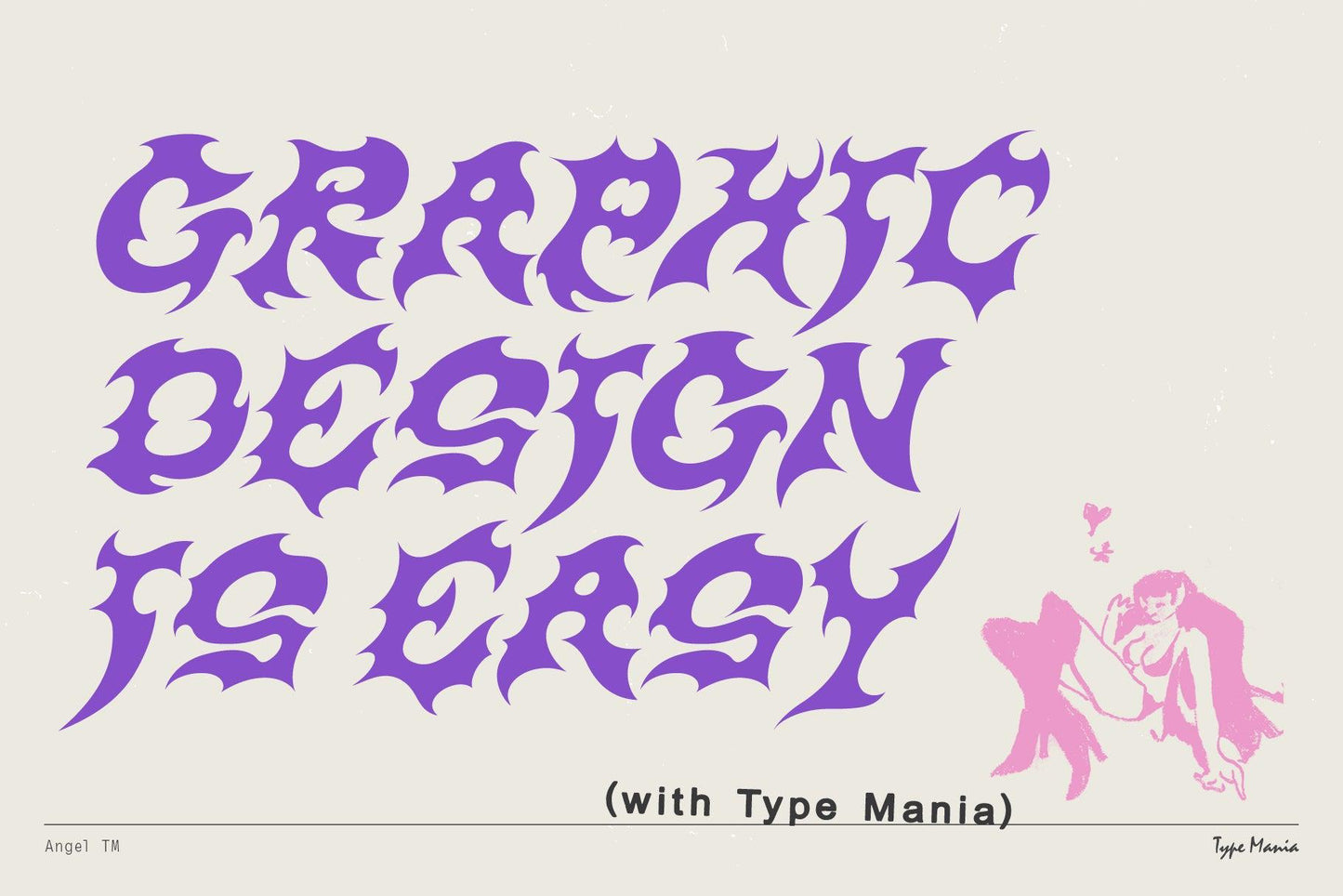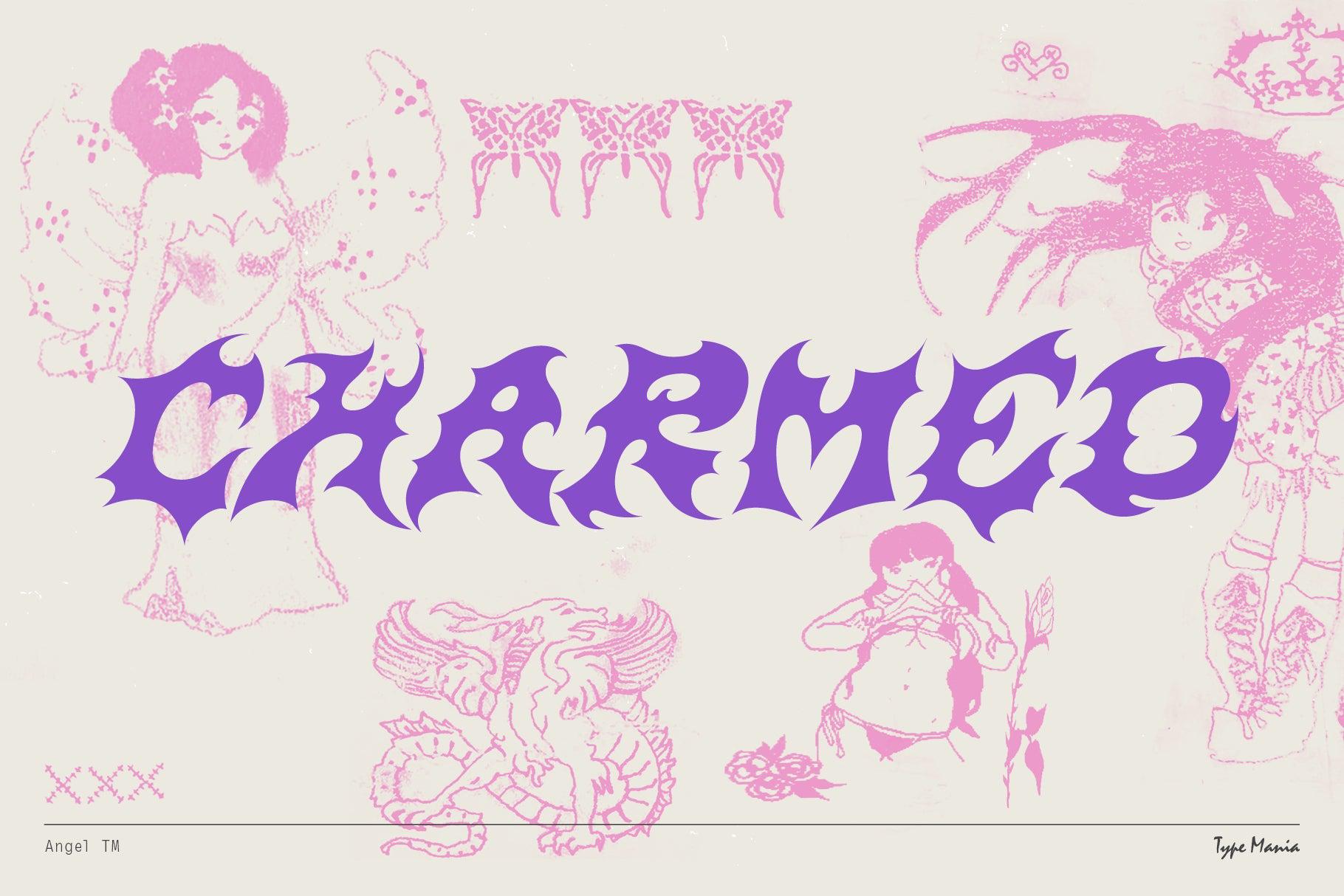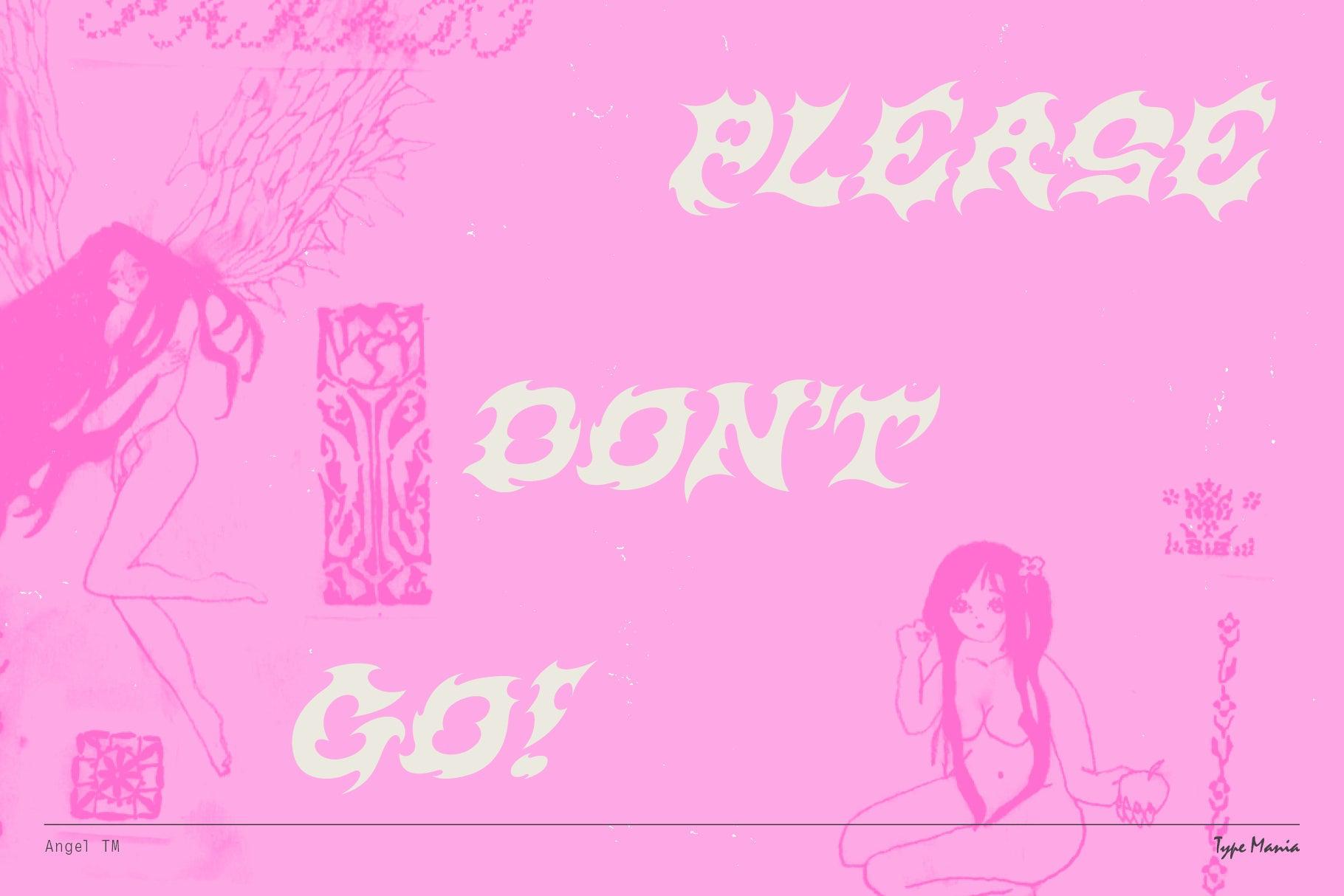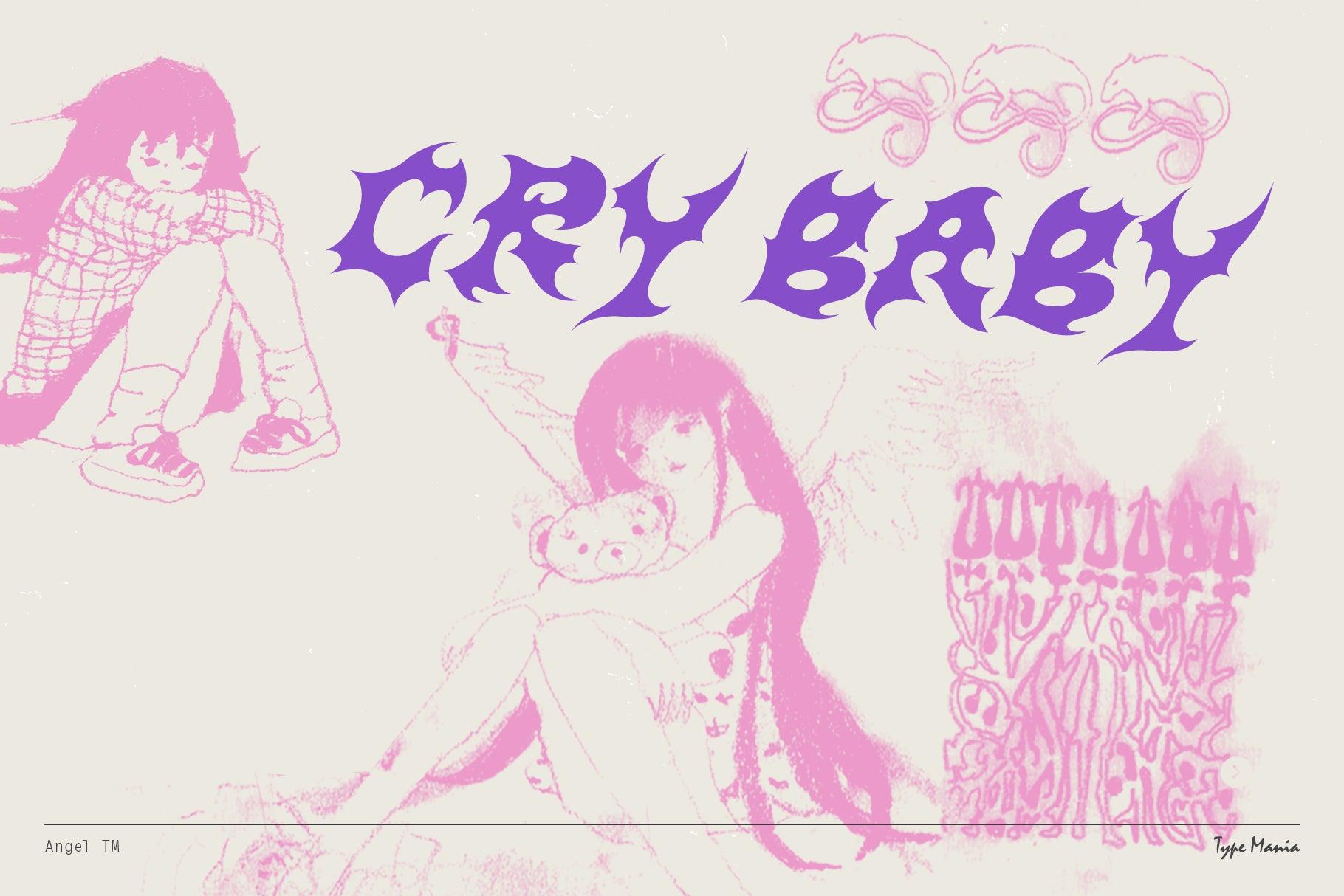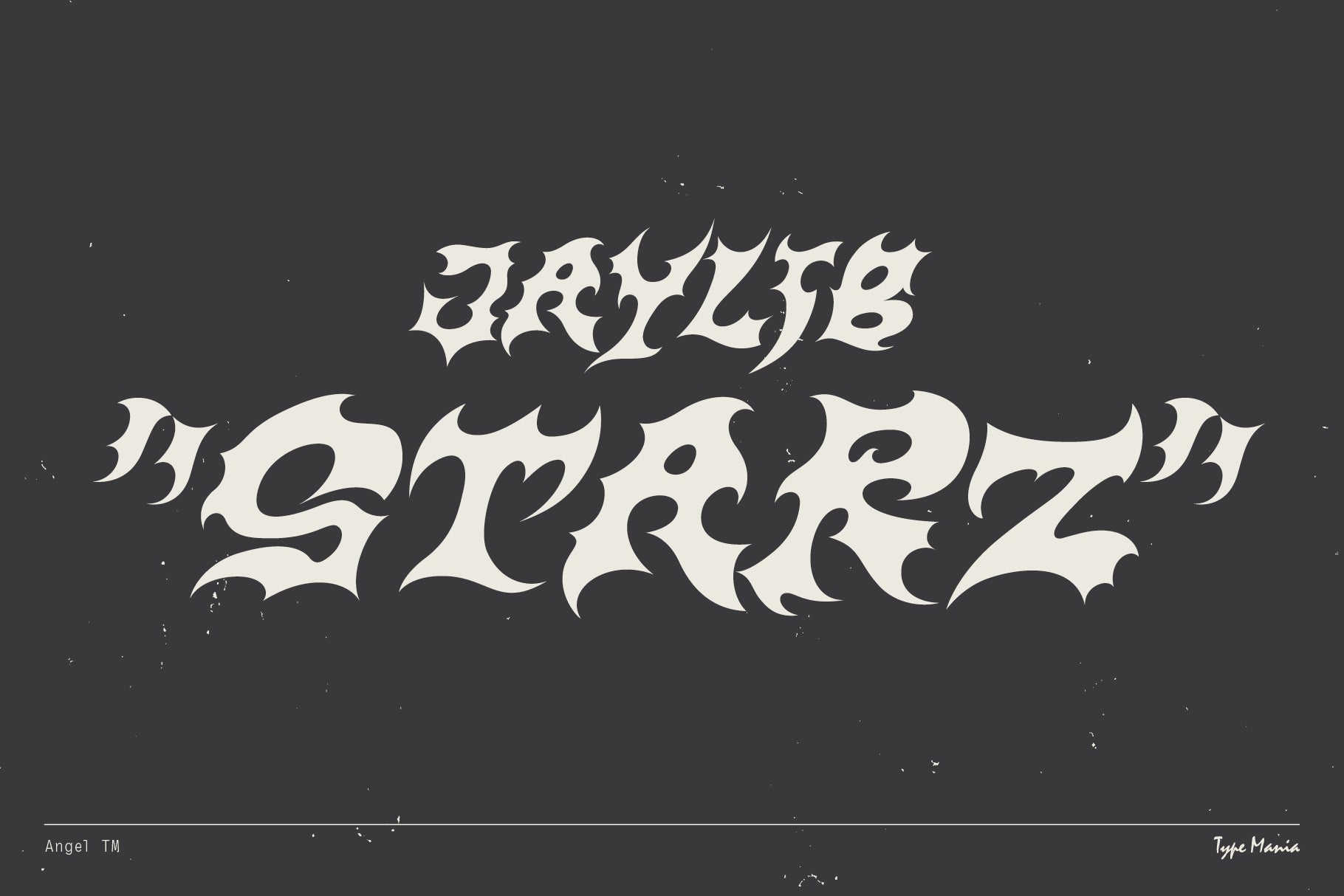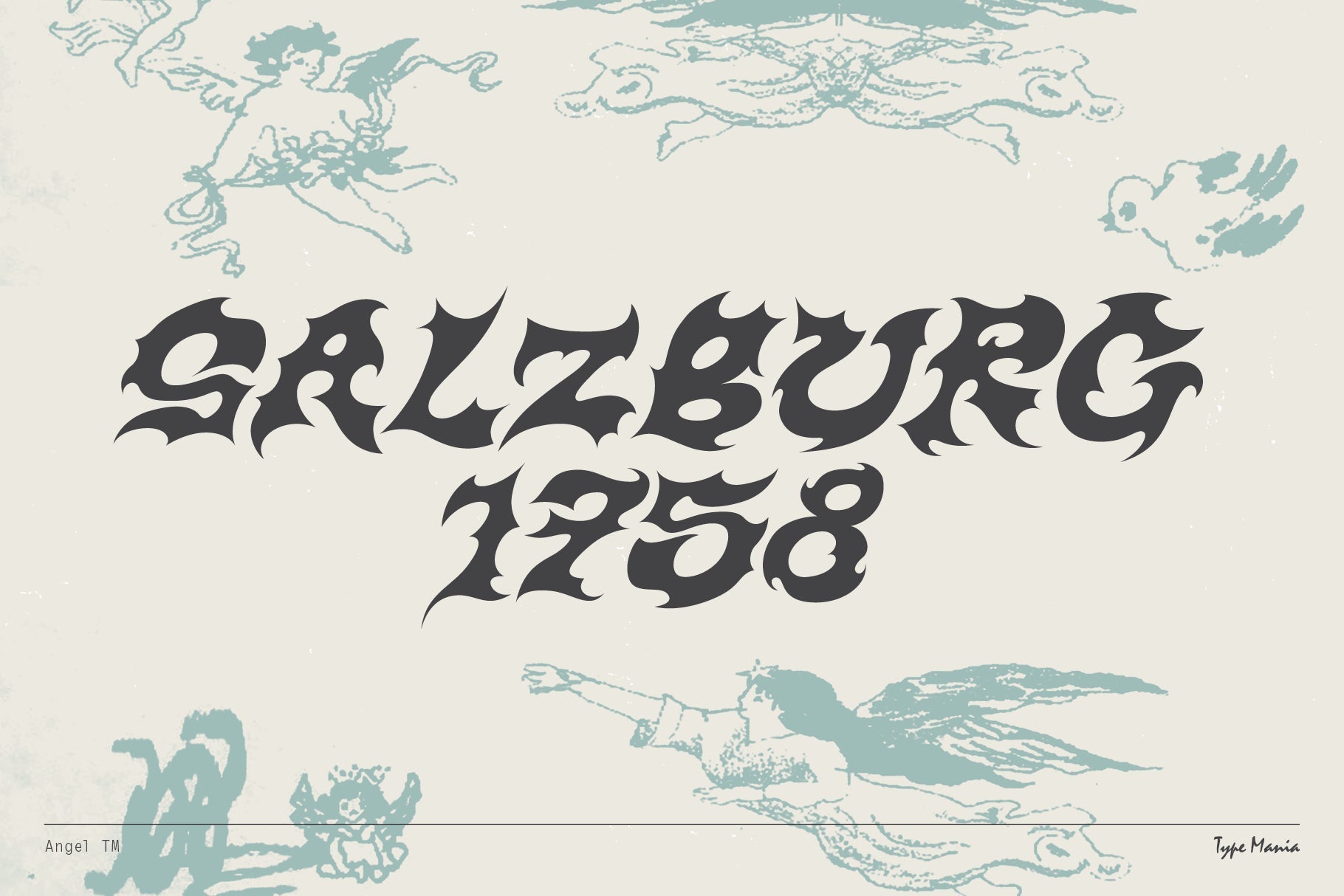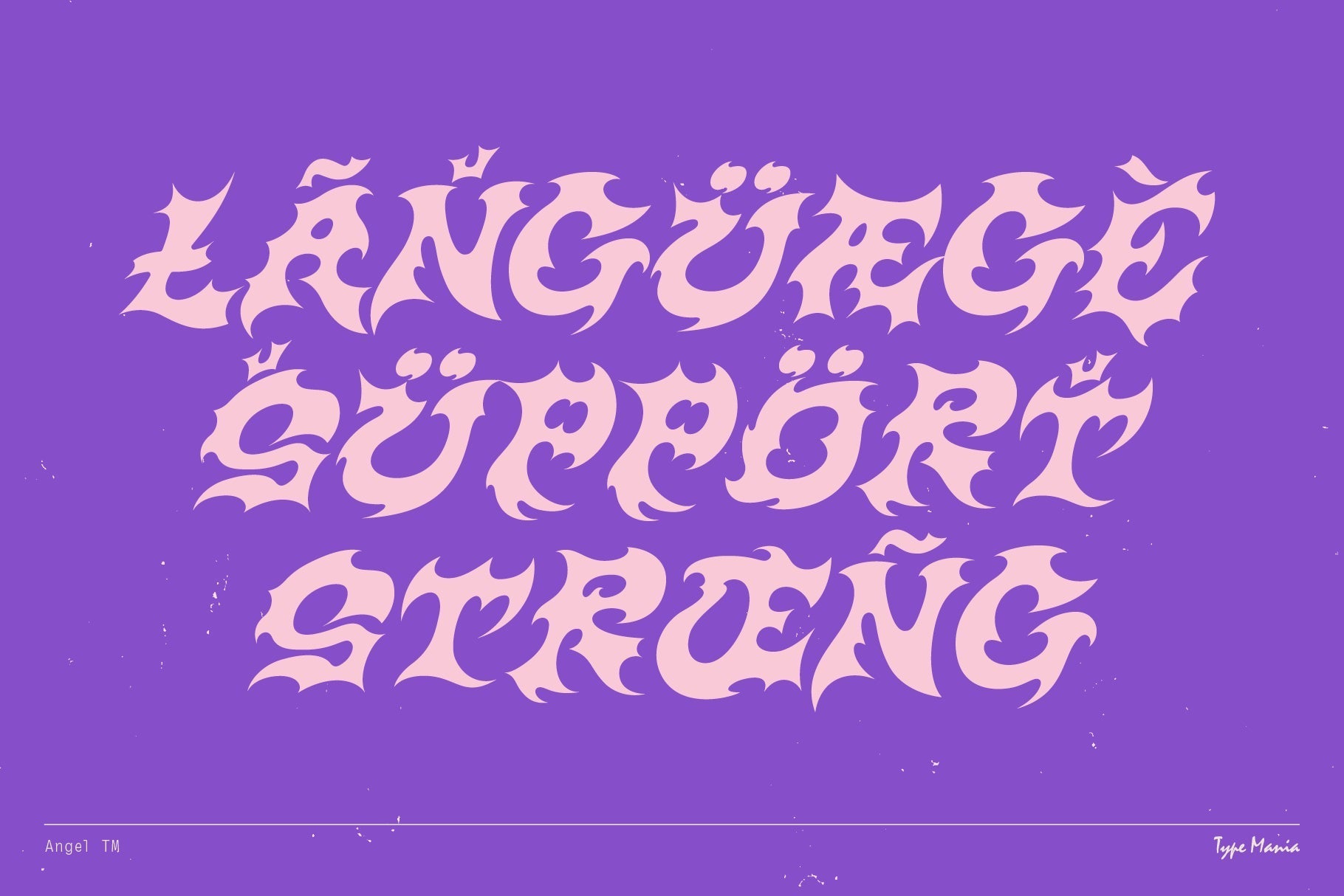
Angel TM
Introducing Angel TM, the capping Y2K tribal font that’s sharper than your favorite butterfly clips 🦋 Whether you're working on logos, apparel, posters or digital art, Angel TM is perfect for making your designs pop with a bit of that early 2000s edge ☆⋆。𖦹°‧★